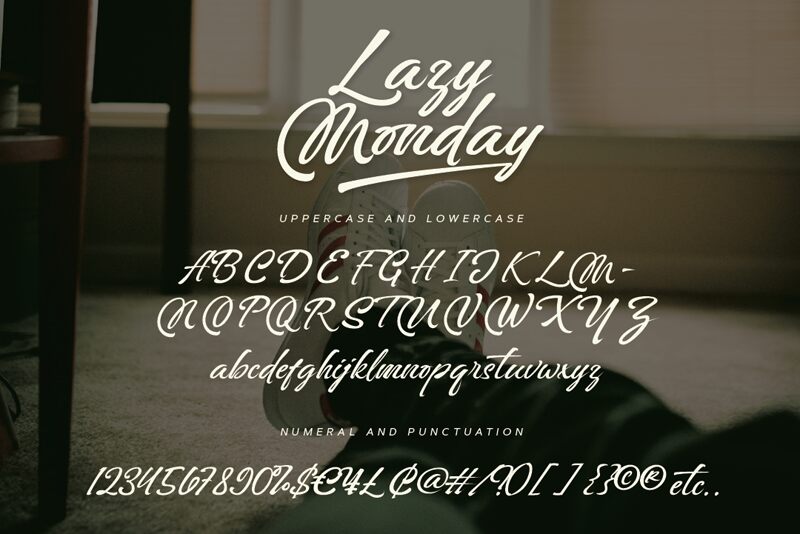
Lazy Monday
Lazy Monday font by Asd Studio is a free calligraphy font with a graceful and flowing style that brings out the best in each letter. Maintaining the magic of calligraphy, it features expressive yet casual character, presenting readers with an impressive display perfect for plenty of occasions and environments.
Engage your audience in wedding invitations or encourage their presence in magazines and posters. Get your branding designs noticed with logos or create stunning business cards for professional establishments. You can easily use Lazy Monday to decorate blog pages, write fancy headlines, design cosmetic packages or apparel items.